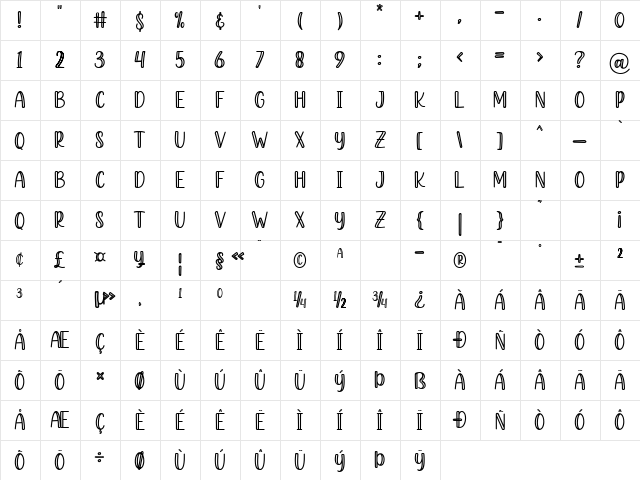
Hashed Browns Outline Regular
Design Context for Hashed Browns Outline Typeface
Hashed Browns Outline brings ornamental detail and strong personality to headlines and identities, where visual impact matters more than quiet functionality.
Font Pairing: Pair with a clean neutral sans-serif for body copy to let Hashed Browns Outline's character lead without overwhelming the composition.
Pro Tip: Use Hashed Browns Outline exclusively at display sizes — it was designed to be seen, not read at length. Let a neutral companion handle body copy.